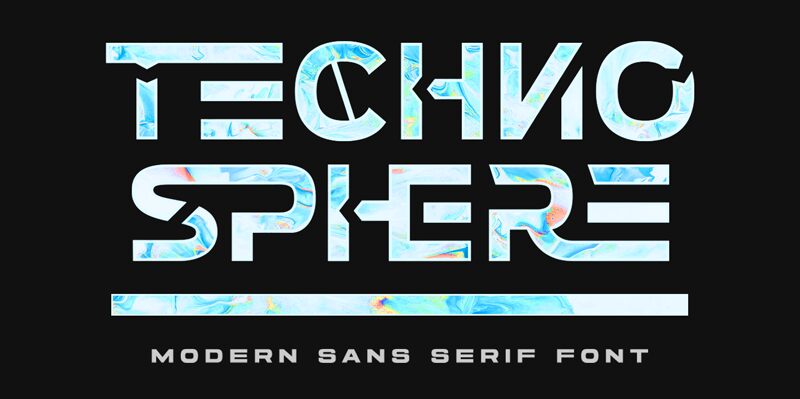
Techno Sphere, a futuristic and captivating display font crafted by Letterhend Studio, exudes a bold and dynamic essence. With its sharp, geometric letterforms and striking visual impact, this font evokes a sense of technological advancement and visionary innovation. The angular structures and clean, minimalist aesthetic lend the design a sleek, contemporary feel, making it a compelling choice for projects seeking to convey a modern, cutting-edge aesthetic.
Techno Sphere's versatility allows it to shine in a variety of design applications, from bold headlines and eye-catching logos to impactful presentations and digital interfaces. Its distinctive character lends itself well to branding for tech-focused industries, science-fiction narratives, and futuristic-themed projects, where its forward-thinking style can truly make a statement.